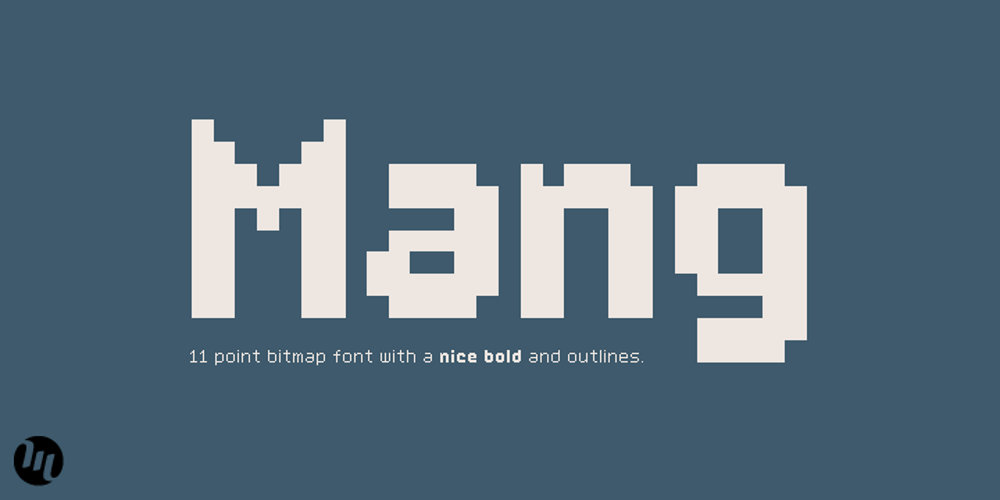
Mang Font Family was designed by Matthew Aaron Desmond and published by MADType. Mang contains 2 styles and family package options. Mang is an 11 point (or 22 pt or 44 pt etc.) bitmap font that was originally designed for a poetry piece in Born Magazine. It is slightly quirky but works well as a text face. You can use it for screen resolution or print designs as it includes outlines.